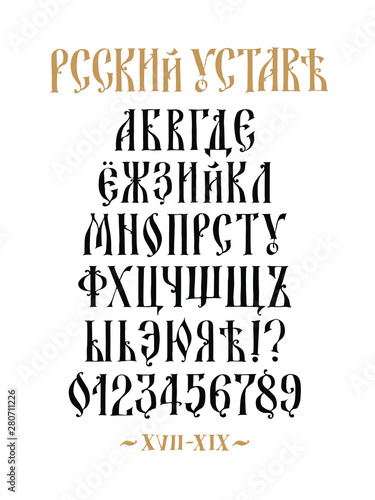
The alphabet of the Old Russian font. Vector. Cyrillic typeface in Russian. Neo-Russian style 17-19 century. All letters are inscribed by hand, arbitrarily. Stylized under the Greek or Byzantine chart